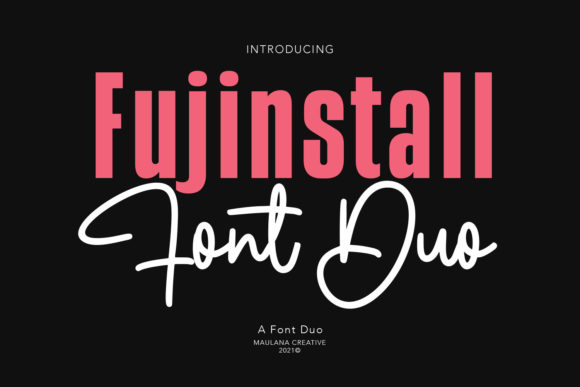
Fujinstall Font Duo: Elevate Your Design with a Cool and Versatile Font Pair
In the world of typography, fonts play a crucial role in conveying messages, expressing emotions, and creating visual identities. When it comes to choosing the right font for your design project, the options can be overwhelming. However, if you’re looking for a cool and versatile duo font that can elevate your designs, look no further than Fujinstall Font Duo. This stunning font pair combines a sans serif and script font that will make your designs stand out from the crowd.
What is Fujinstall Font Duo?
Fujinstall Font Duo is a carefully crafted font pair that consists of a sans serif and script font. The sans serif font boasts clean lines, modern simplicity, and exceptional legibility, making it perfect for headlines, titles, and short paragraphs. On the other hand, the script font is elegant, fluid, and perfect for adding a touch of sophistication to your designs. Together, this font duo offers unparalleled versatility, allowing you to create a wide range of designs, from wedding invitations and stationery to social media posts and more.
Key Features of Fujinstall Font Duo
- Cool and Versatile: Fujinstall Font Duo is designed to be adaptable and can be used for various design projects, including print and digital materials.
- Sans Serif and Script Font: The font pair includes a modern sans serif font and an elegant script font, allowing you to mix and match to create stunning designs.
- Ravishing Style: The fonts feature a unique and captivating style that will add a touch of sophistication to your designs.
- Easy to Read: The sans serif font is optimized for legibility, making it perfect for body text, while the script font is ideal for headlines and titles.
Uses of Fujinstall Font Duo
Fujinstall Font Duo is an incredibly versatile font pair that can be used for a wide range of design projects, including:
- Wedding Invitations: Create stunning wedding invitations, save-the-date cards, and wedding stationery with this beautiful font duo.
- Stationery: Design gorgeous stationery, including letterheads, business cards, and notebooks.
- Social Media Posts: Elevate your social media presence with eye-catching posts, quotes, and graphics.
- Branding: Use Fujinstall Font Duo to create a unique visual identity for your brand, including logos, packaging, and advertising materials.
Why Choose Fujinstall Font Duo?
With so many font options available, why should you choose Fujinstall Font Duo? Here are a few compelling reasons:
- Unique Style: Fujinstall Font Duo boasts a distinctive style that will set your designs apart from the crowd.
- Highly Versatile: The font pair can be used for a wide range of design projects, making it a valuable addition to your font library.
- Exceptional Quality: Fujinstall Font Duo is crafted with attention to detail, ensuring that your designs look professional and polished.
Tips for Using Fujinstall Font Duo
To get the most out of Fujinstall Font Duo, here are some tips to keep in mind:
- Mix and Match: Experiment with different font combinations to create visually appealing designs.
- Use for Headlines and Body Text: Use the sans serif font for body text and the script font for headlines and titles.
- Play with Colors: Experiment with different colors to add depth and interest to your designs.
- Keep it Simple: Don’t be afraid to keep your designs simple and elegant, allowing the font to take center stage.
Fujinstall Font Duo is an exceptional font pair that offers a unique blend of style, versatility, and quality. Whether you’re a designer, artist, or simply someone who appreciates beautiful typography, this font duo is sure to impress. With its ravishing style, ease of use, and high level of versatility, Fujinstall Font Duo is the perfect addition to your font library. So why wait? Download Fujinstall Font Duo today and start creating stunning designs that will leave a lasting impression!